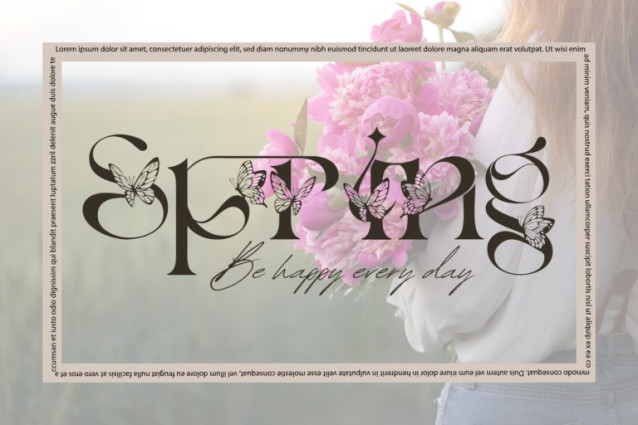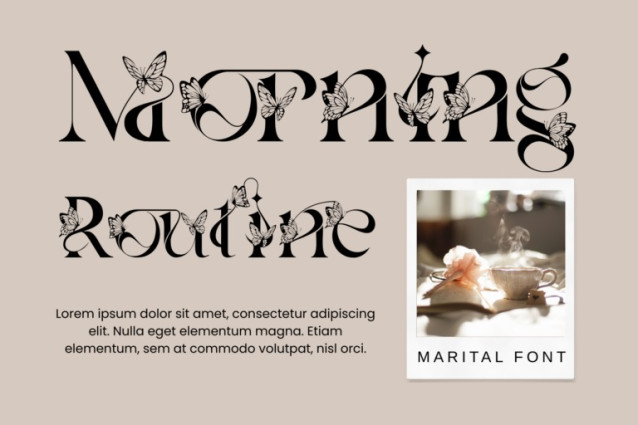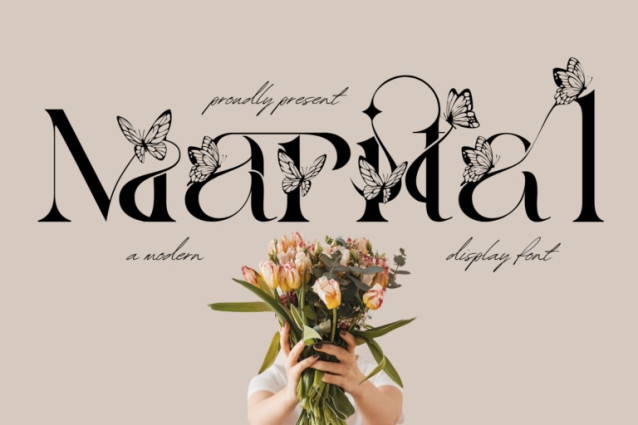
Marital Font
Marital Font – A Whimsical Modern Serif Display Font, a whimsical and elegant modern serif display font crafted to elevate your designs with a touch of magic. With its high-contrast letterforms, delicate curves, and 100+ imaginative ligatures featuring graceful butterflies and flowing strokes, this font is your perfect companion for projects that aim to charm and impress.
Marital brings together sophistication and creativity, making it ideal for wedding invitations, fashion branding, feminine logos, editorial headlines, and luxury packaging.
Font Features:
✔ Uppercase & Lowercase Letters
✔ 100+ Unique Decorative Ligatures
✔ Numerals & Punctuation
✔ Multilingual Accented Characters
✔ Butterfly-inspired stylistic alternates
About 100 ligatures combined with Stylistic Alternates Font: